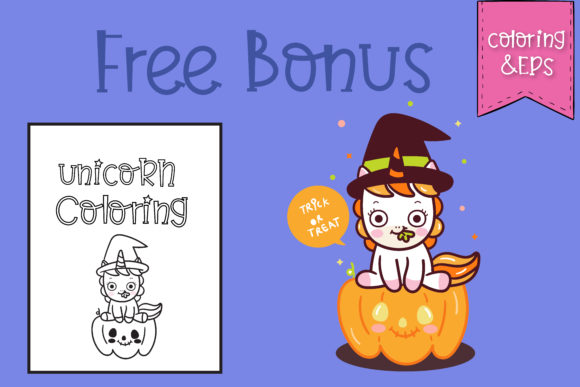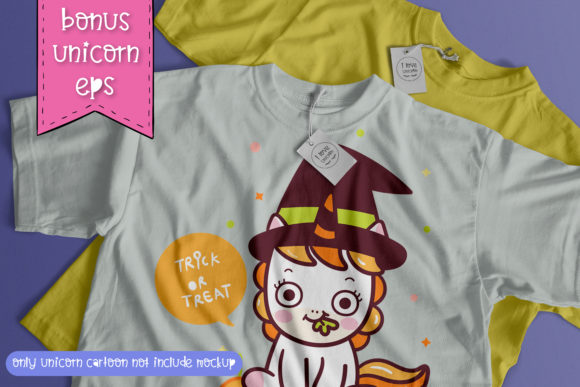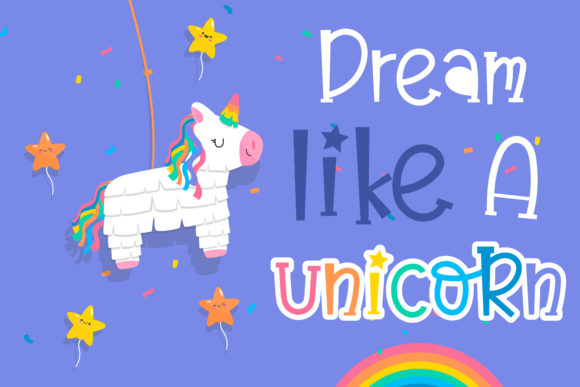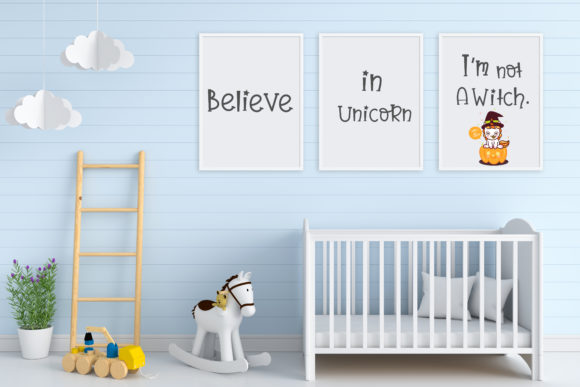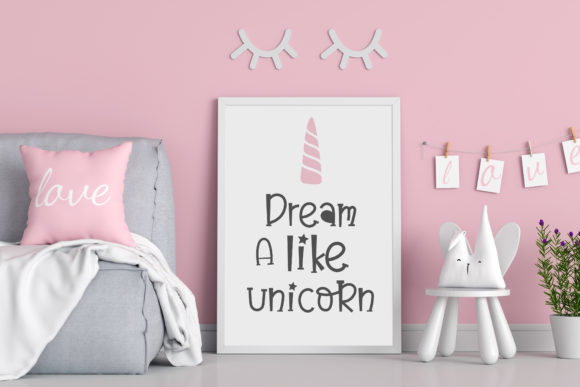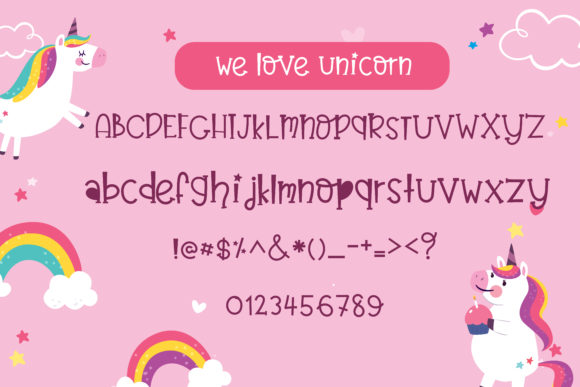
Unleash Your Creativity with Believe in Unicorn Font
Have you ever sat at your desk, staring at a blank page, feeling uninspired and unsure of where to start? It’s a moment we’ve all been in, where the words just won’t flow and the ideas seem to be stuck. But what if I told you there’s a font that can help spark your creativity and bring a smile to your face?
Introducing Believe in Unicorn Font, a sweet and soft hand-lettered font that combines cute cartoon doodles and a coloring page to create a cheerful feel. This font is more than just a design element – it’s a tool to help you tap into your creative potential and bring your ideas to life. Whether you’re a designer, crafter, or simply someone who loves to make things, Believe in Unicorn Font is a valuable addition to your toolkit.
Believe in Unicorn Font Key Features
- Font Family: Believe in Unicorn Font is a unique and playful font family designed to evoke a sense of whimsy and fantasy.
- Unique Characteristics: Believe in Unicorn Font features a distinctive, hand-drawn style with intricate details and flourishes, making it perfect for adding a touch of magic to designs.
Designer Review: Believe in Unicorn Font
At first glance, the Believe in Unicorn Font is a whimsical, magical creation that’s sure to capture attention. ✨ Its unique blend of fantasy and playfulness makes it perfect for projects that need a touch of enchantment. The font’s irregular lines and curves evoke a sense of hand-drawn charm, which can be especially appealing for children’s books, greeting cards, or social media graphics.
- ✨ Unique and whimsical design that stands out from the crowd
- ✨ Perfect for projects that need a touch of fantasy or playfulness
- ✨ Hand-drawn feel adds to its charm and character
- ⚠️ May be difficult to read for extended periods of time due to its irregular shape
- ⚠️ Limited legibility, may not be suitable for large body text
- ⚠️ Not suitable for formal or professional projects
Overall, I think the Believe in Unicorn Font is a fun and creative addition to any designer’s toolkit. While it may not be the best choice for every project, it’s perfect for those looking to add a touch of magic and whimsy to their designs. With its unique design and hand-drawn feel, it’s sure to capture attention and leave a lasting impression.
Tip: Use the font in conjunction with colorful graphics and bold textures to create a whimsical and magical design.
Tip: Use the font in combination with layered graphics and intricate details to create a unique and eye-catching design.
Tip: Use the font to add a touch of magic to your presentations or documents, making them more engaging and memorable.
The Believe in Unicorn Font is ideal for:
- Children’s book covers and illustrations
- Magical and whimsical branding
- Event invitations and decorations
The Believe in Unicorn Font includes a range of special features and glyphs, including ligatures, swashes, and ornaments. To access these features, you can use the font’s OpenType features in software applications that support them, such as Adobe Creative Cloud. You can also use font editors like FontLab or Glyphs to access and customize the font’s glyphs.